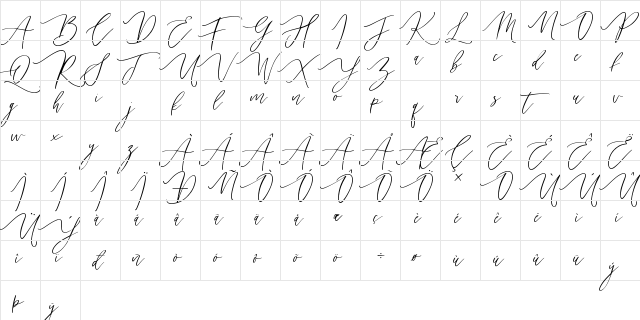
Handita Regular
Design Context for Handita Typeface
Handita brings a calligraphic fluidity to the page — its connecting strokes and expressive curves give it an unmistakably human quality.
Font Pairing: Combine Handita with a simple geometric sans for maximum contrast — the tension between flowing curves and clean structure is a classic typographic pairing.
Pro Tip: Pair Handita with a clean sans-serif for supporting text. The contrast between fluid script and geometric structure creates an elegant typographic hierarchy.